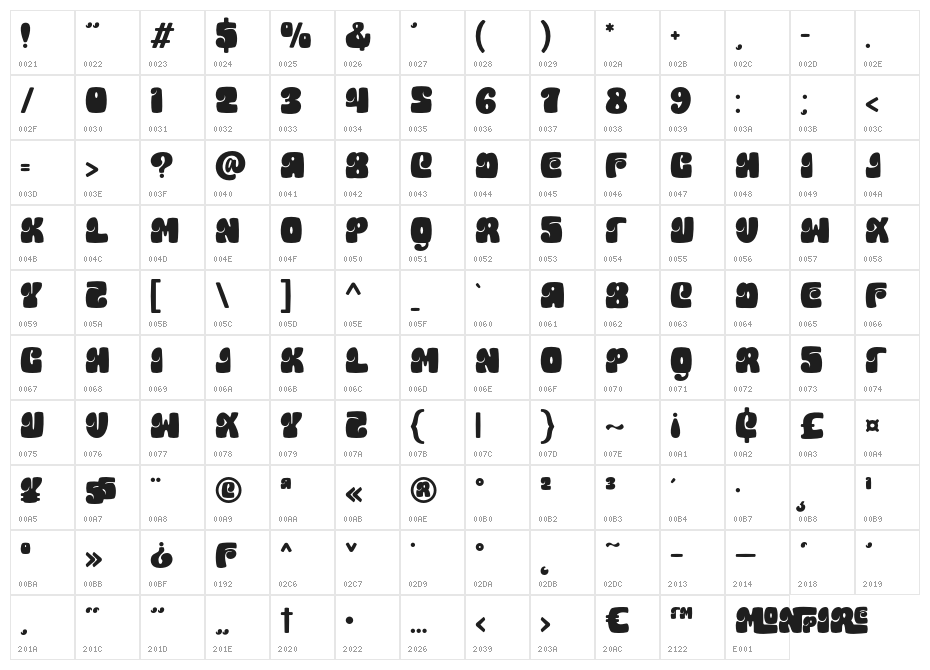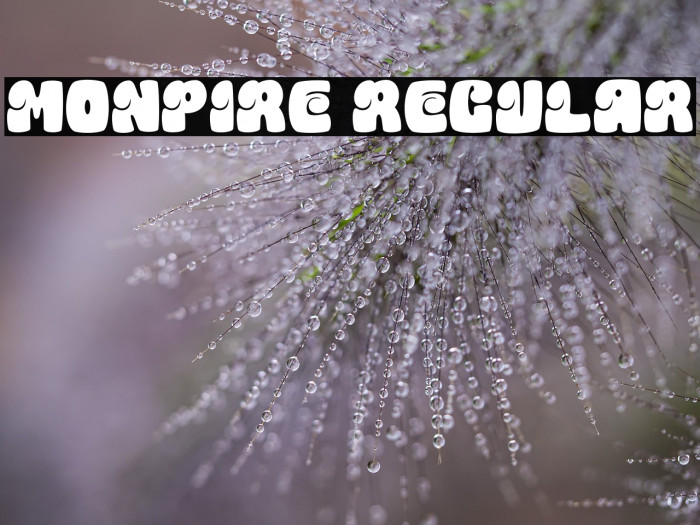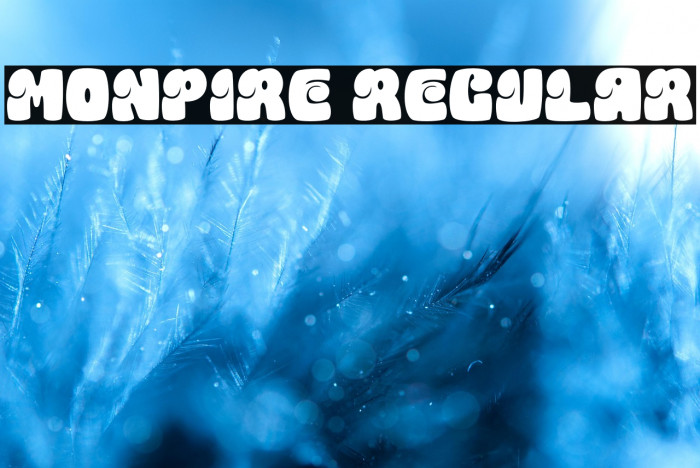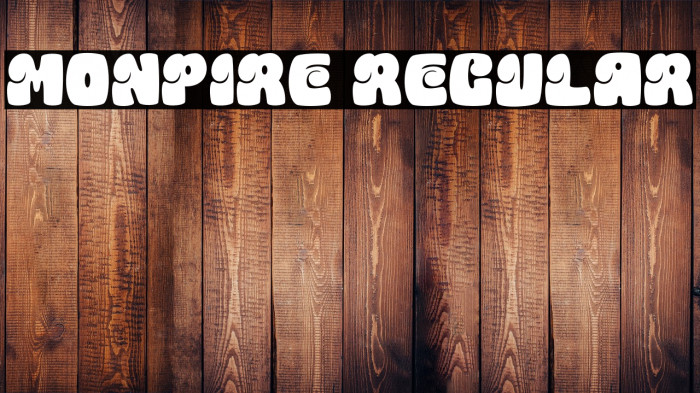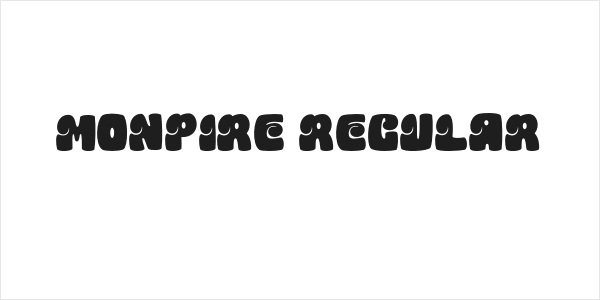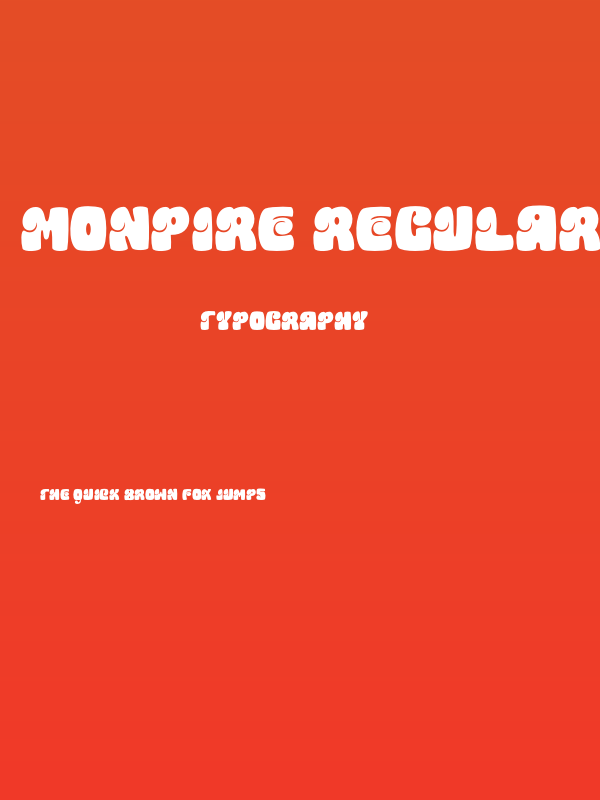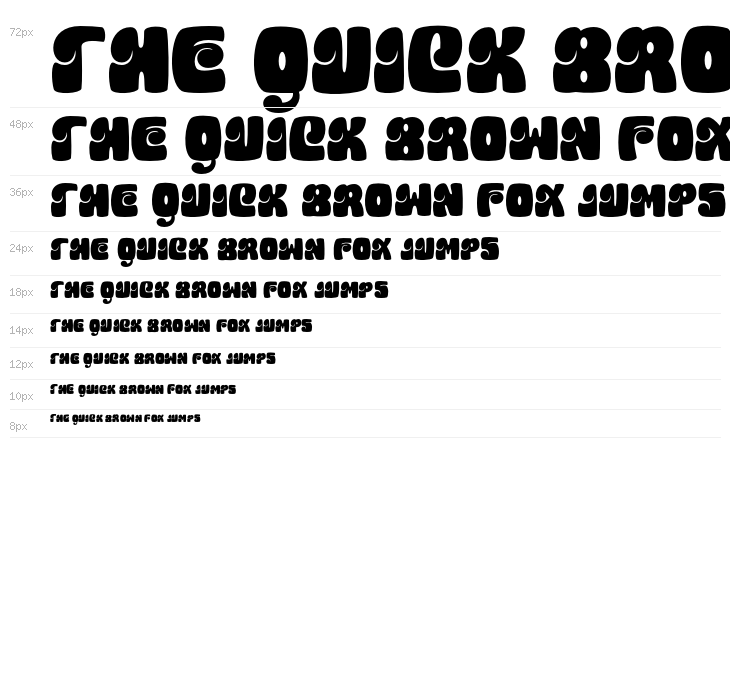
Monpire Regular Font
Monpire Regular Description
This font features a bold and playful design with rounded edges and a chunky appearance. The characters are uniformly thick, giving it a strong presence and making it highly legible at larger sizes. The style is reminiscent of retro or vintage aesthetics, with a touch of modern flair. Its unique, bubbly form makes it stand out, and the consistent weight across all characters ensures a cohesive look. The font's whimsical nature is enhanced by its smooth curves and lack of sharp angles, creating a friendly and approachable feel.
| Overall Style | Retro, Playful |
| Proposed Projects | Ideal for posters, children's books, playful branding, and retro-themed designs. |